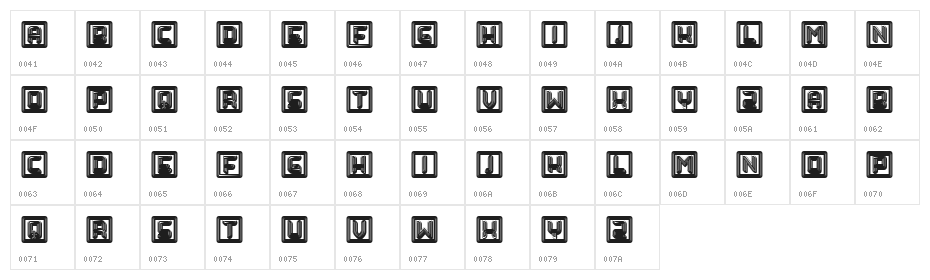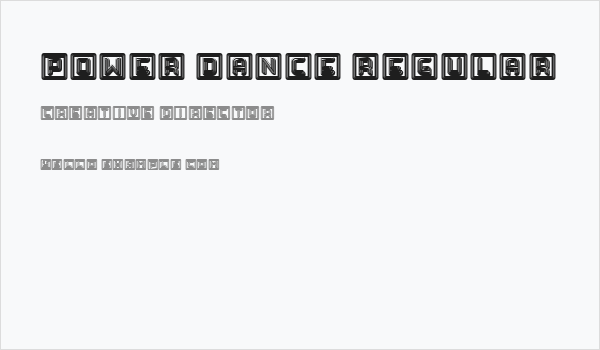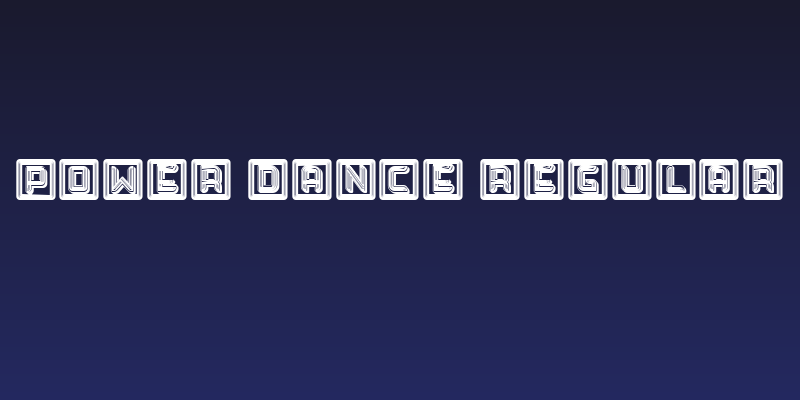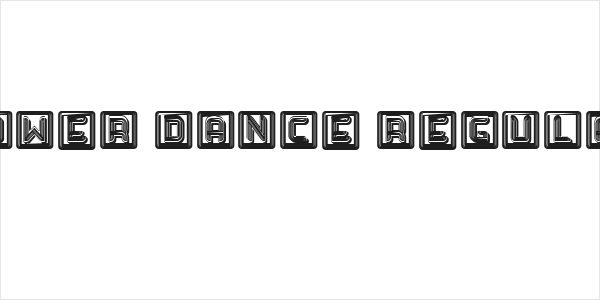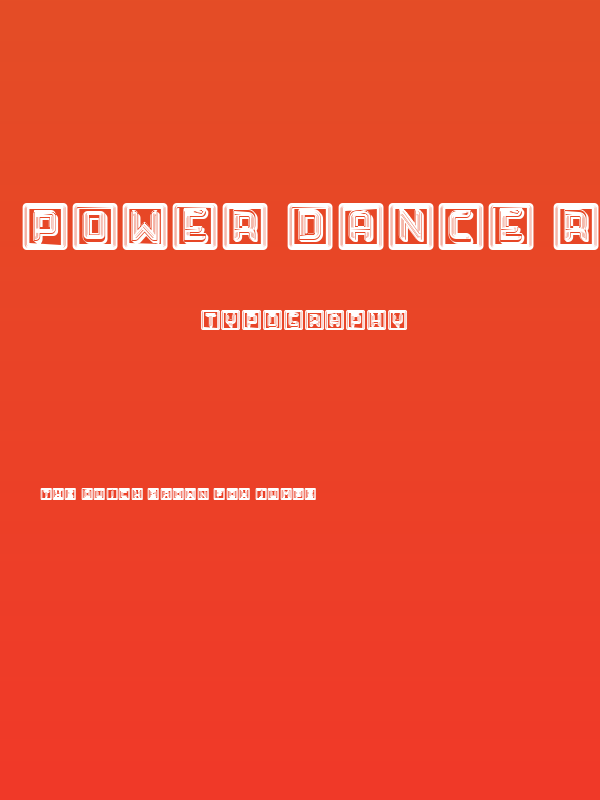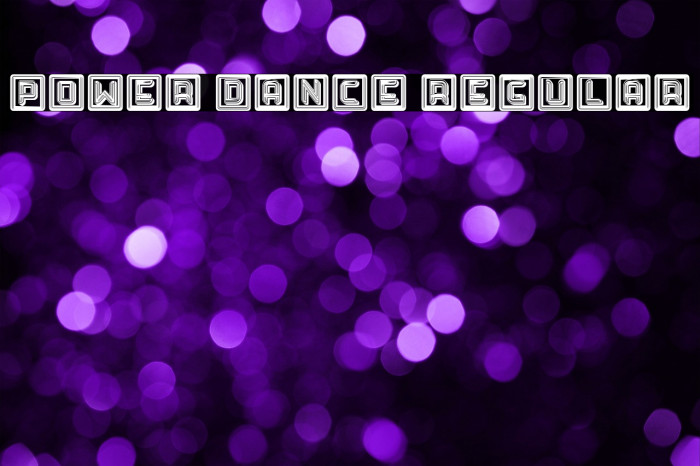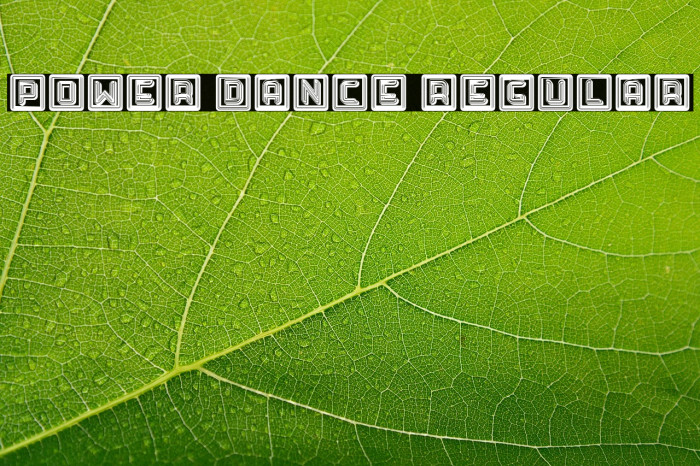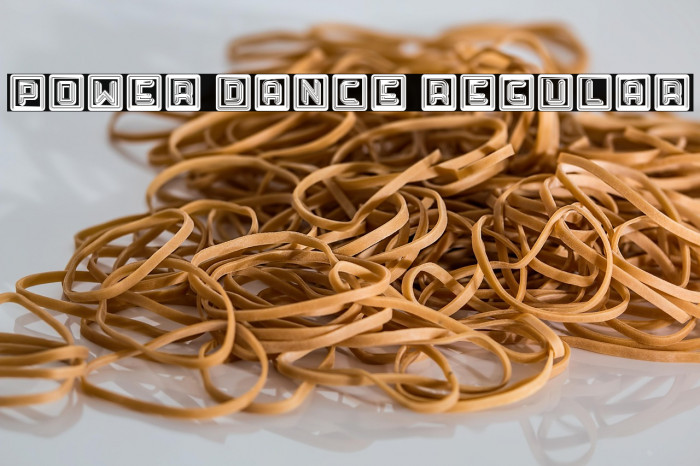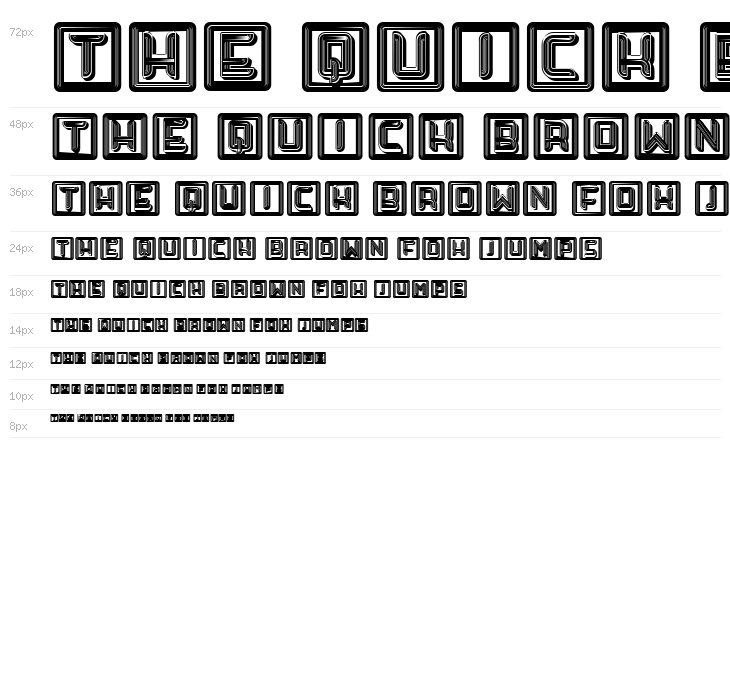
Power Dance Regular Font
This font features a bold, three-dimensional design with a unique, futuristic aesthetic. Each character is enclosed within a square, giving it a distinct, block-like appearance. The letters are crafted with a combination of solid and outlined strokes, creating a layered effect that adds depth and visual interest. The geometric style is consistent across all characters, providing a cohesive look. The font is highly stylized, making it suitable for projects that require a strong visual impact.
| Overall Style | Futuristic, Decorative |
| Proposed Projects | Ideal for video game titles, sci-fi movie posters, or any project needing a bold, futuristic look. |